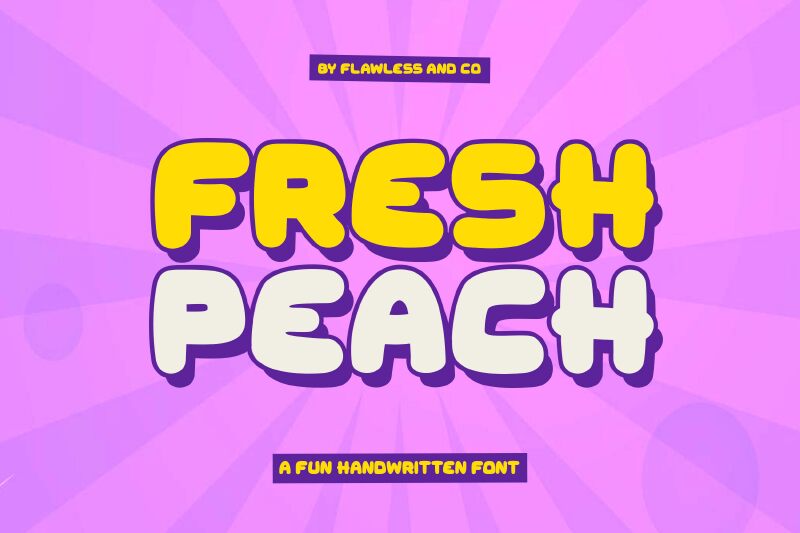
Fresh Peach Regular
Fresh Peach is a cartoon display font designed by Achmad Yani of Flawless and Co. This expanded bold typeface has a retro-inspired style with smooth rounded lines and edges. Modern and casual, it screams fun and friendliness which makes it perfect for all sorts of entertainment purposes.
The free Fresh Peach font can be used in branding, posters, logo design, typography art, packaging, food menu design, book covers for kids’ books in particular, social media posts, headings on websites or mobile apps related to gaming or digital entertainment projects.